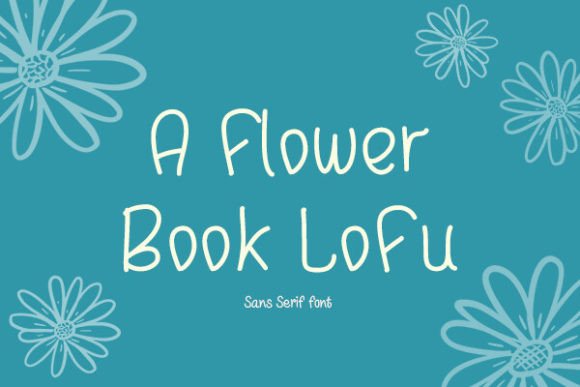
The Delightful A Flower Book Lofu Font: A Designer’s New Best Friend
I’ll never forget the time I was working on a children’s book design project, and I just couldn’t find the right font to match the playful tone of the story. The client wanted something fun, cute, and engaging, but not too over-the-top. That’s when I stumbled upon the A Flower Book Lofu font, and it instantly became my go-to choice. In this article, I’ll share my experience with this lovely font, its features, and how to make the most of it in your designs.
- ✨ The A Flower Book Lofu font is designed in a cute, fun, and playful sans serif font style that instantly adds a touch of whimsy to any design.
- ✅ It’s perfect for a wide range of creative projects, from logos and posters to children’s themed designs, bags, T-shirts, and clothing.
- 💕 The font’s playful vibe makes it an excellent choice for designs that require a friendly, approachable tone.
While the A Flower Book Lofu font is an excellent choice for many projects, there are a few things to keep in mind:
- ⚠️ The font’s playful style might not be suitable for more formal or professional designs, such as corporate branding or business reports.
- 🤔 Some users might find the font’s quirky style too attention-seeking for certain design applications.
- Experiment with the font’s OpenType features, such as glyphs and stylistic alternates, to add more personality to your design.
The Story Behind A Flower Book Lofu
The A Flower Book Lofu font was designed with the intention of creating a playful, fun font that would bring joy to designers and their projects. The font’s creator was inspired by the beauty of flowers and the simplicity of sans serif fonts. The result is a unique, charming font that’s perfect for a wide range of creative applications.
Q: What type of designs is A Flower Book Lofu best suited for?
A: A Flower Book Lofu is perfect for fun, creative projects such as logos, posters, children’s themed designs, bags, T-shirts, and clothing.